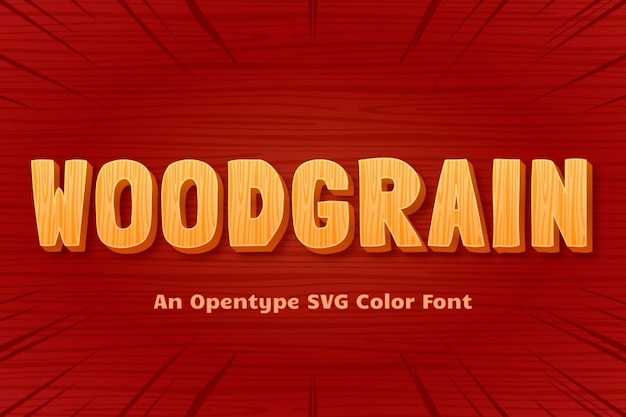
Woodgrain
Woodgrain Font
It is a font that exudes rustic charm and organic warmth. With rounded edges that mimic the gentle curves of wood grain, it's the perfect choice for projects that aim to evoke a cozy, natural feel. "Woodgrain" adds an inviting touch of nature's beauty to your typography. It's like bringing the soothing essence of the forest to your design palette.